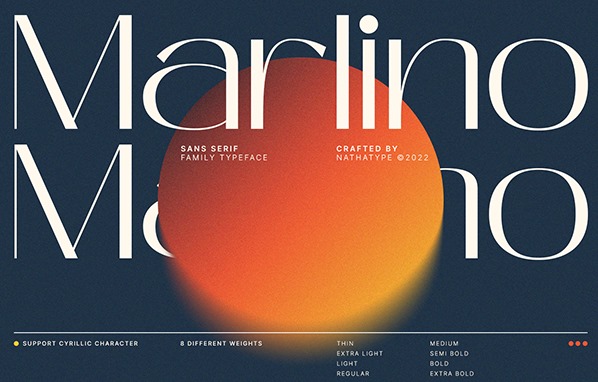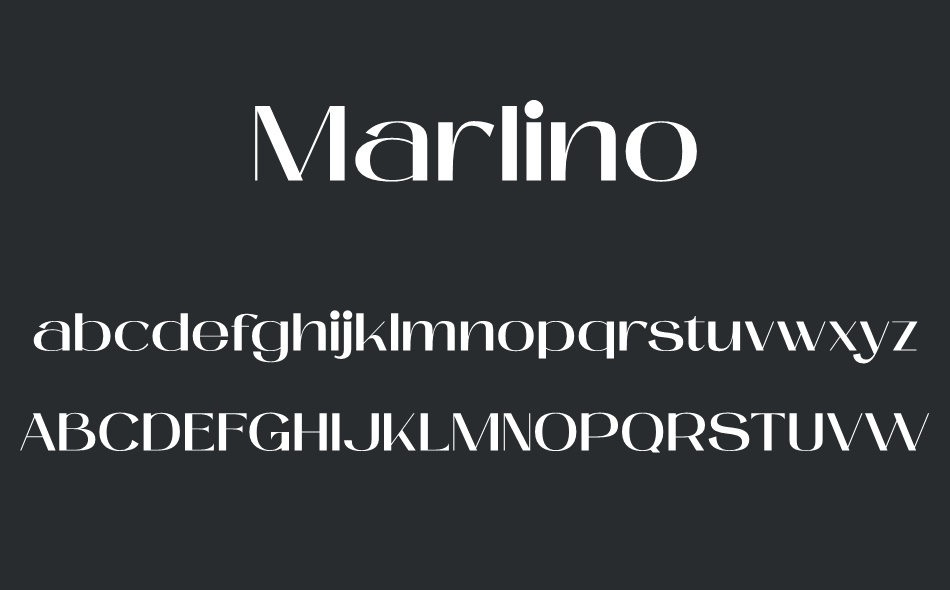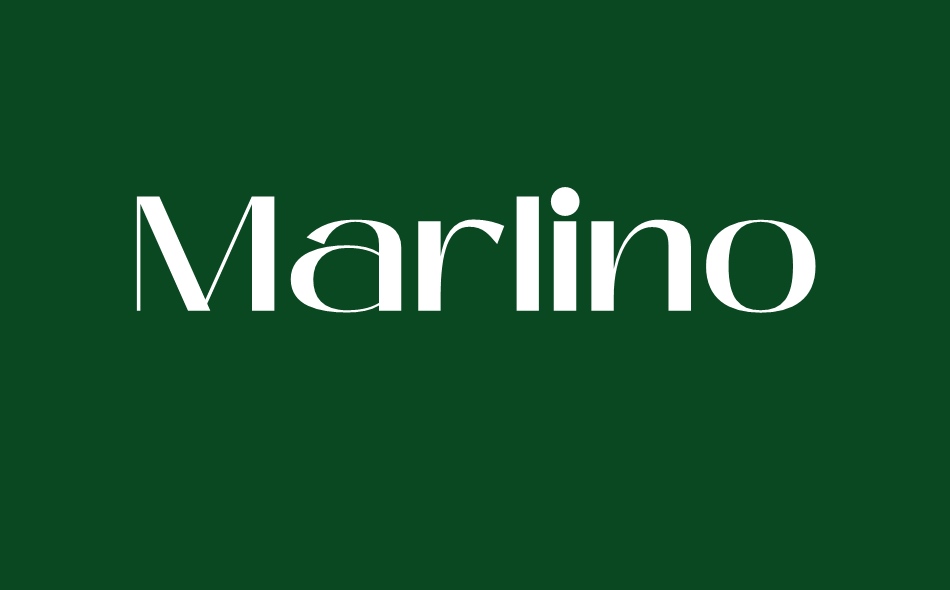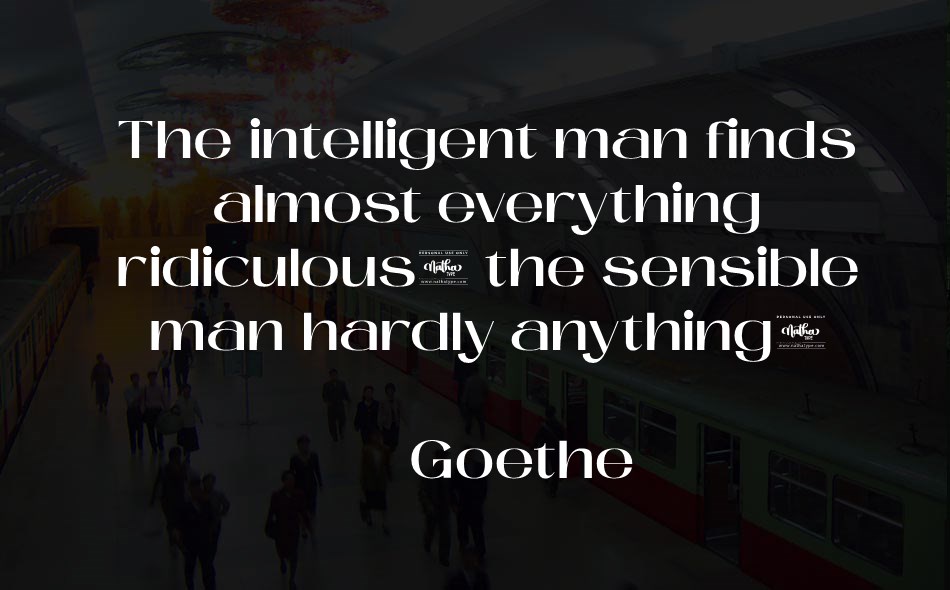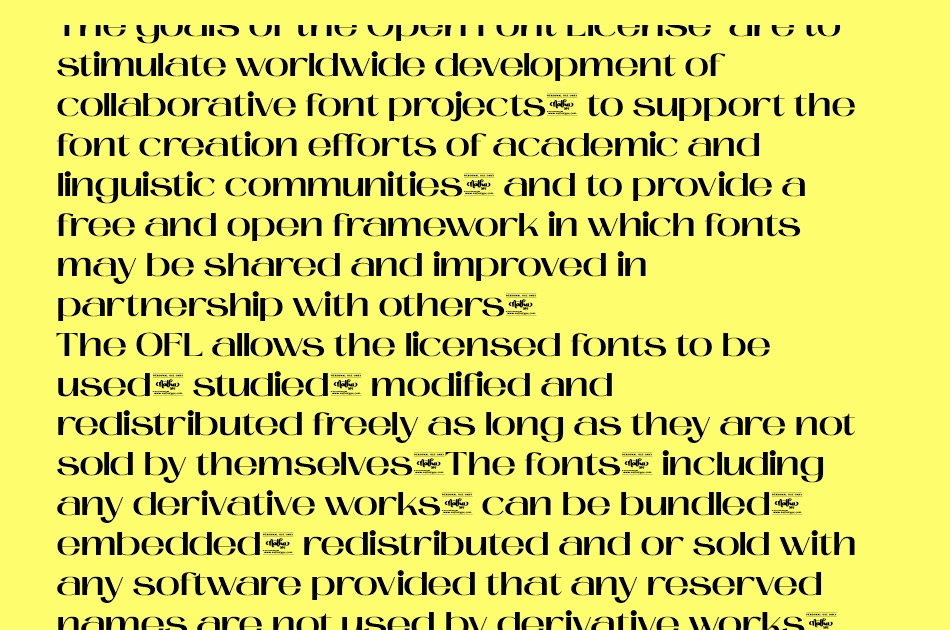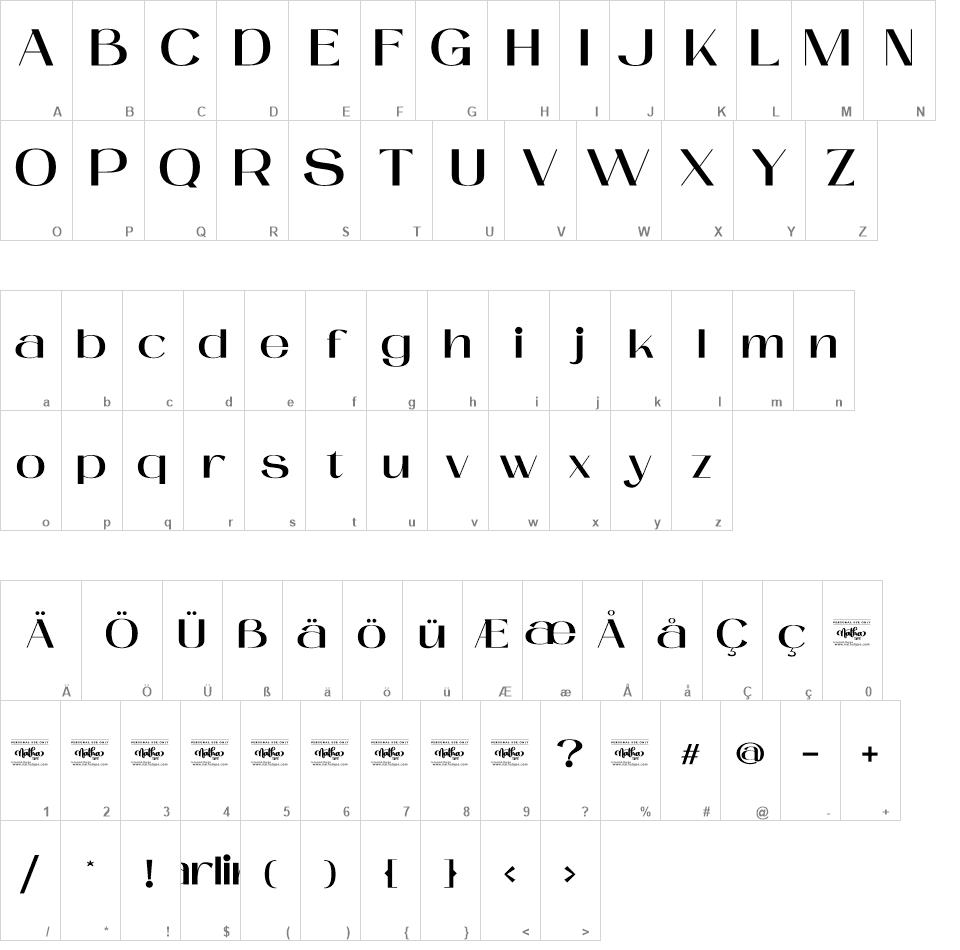
Marlino font
Marlino makes your work got even easier. Marlino is a sans serif font family. It’s simple, modern yet
purposely function and definitely helps you achieve favorable design results. There are 8 different
styles in this family. This variety in styles and character availability gives you some flexibility in terms of
where and when you decide to use it.